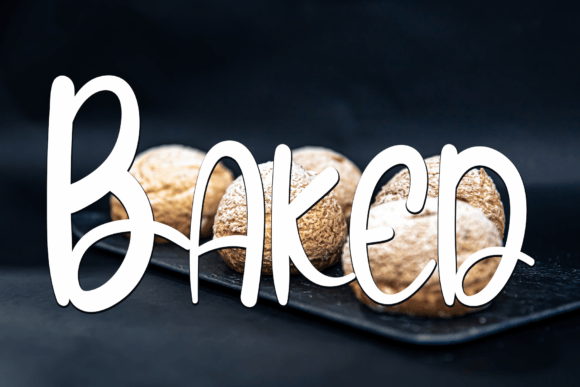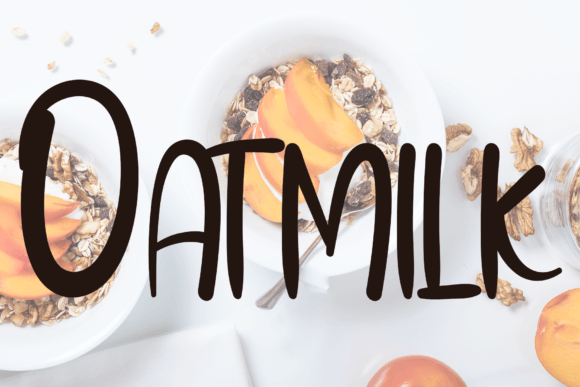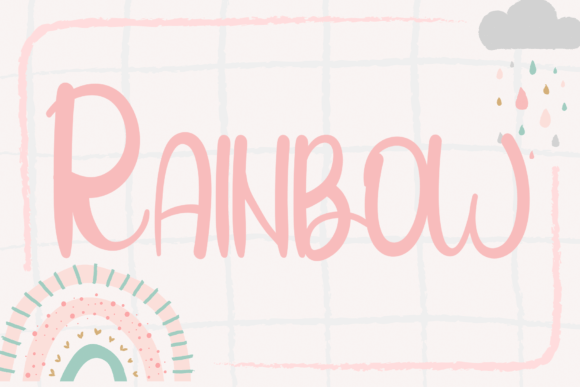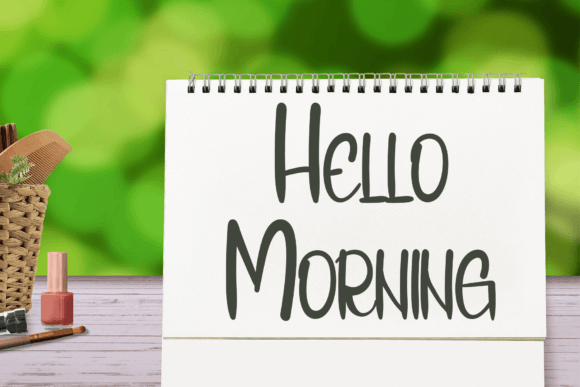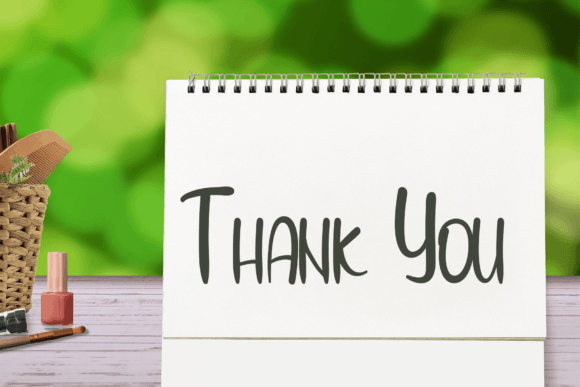
Introduction to Burger Font
Do you remember the feeling of excitement when you stumble upon the perfect design element for your creative project? It’s like a spark of inspiration that ignites a fire of creativity, and you can’t wait to bring your idea to life. For designers, finding that perfect font can be a game-changer. And that’s exactly what the Burger Font does – it adds a touch of uniqueness and personality to your design.
With its delicate handwritten style, the Burger Font is a valuable resource for designers who want to create high-quality designs that stand out from the crowd. Whether you’re working on a food product label, a wedding invitation, or a title for a blog post, this font is sure to impress. And the best part? You can download it for free, making it an excellent addition to your design arsenal.
Key Features of Burger Font
- High-quality, professional design suitable for various creative projects, including logos and branding materials.
- Unique characteristics include a modern, bold aesthetic and a wide range of customization options.
- Perfect as a design resource for various projects, including food-related businesses and creative agencies.
Honest Review: Burger Font
As a designer, I’m always on the lookout for unique and high-quality design resources to elevate my creative projects. Recently, I stumbled upon the Burger Font, and I’m excited to share my honest review with you.
What works well: ✨ I love the playful and modern vibe of the Burger Font. It’s perfect for food-related projects or any design that needs a touch of whimsy. The font is also available for free download, making it an excellent choice for designers on a budget. Additionally, the transparent background option gives me the flexibility to use it in various design scenarios.
What doesn’t work well: ⚠️ While the Burger Font is a great addition to any design arsenal, I wish it came in more styles or weights. Currently, it’s a single font with limited customization options. This might limit its use in certain design projects that require more font variety.
Overall impression: I’m impressed with the Burger Font’s unique design and high-quality construction. It’s a valuable design resource that can add a creative twist to any project. If you’re looking for a fun and modern font for your next design project, the Burger Font is definitely worth considering.
- Perfect for food-related projects or designs that need a playful touch
- High-quality design construction
Burger Font
Burger Font is a free design resource that can be used in various creative projects. This high-quality font features a transparent background, making it easy to use in different design applications.
Tips for Getting the Most Out of Burger Font
To get the most out of Burger Font, use it in conjunction with other design resources, such as graphics and textures. Experiment with different font sizes and styles to create a unique look.
Burger Font is commonly used in food-related projects, such as restaurant menus and food blogs. It can also be used in other creative projects, such as social media graphics and posters.